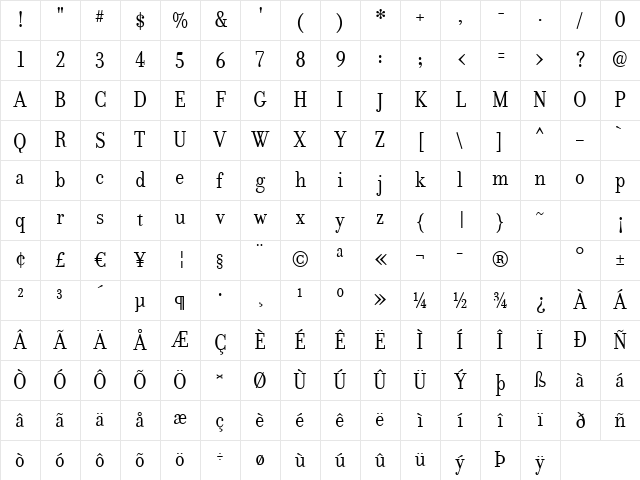
Complete Donatora Regular glyph index. Displaying only characters natively supported by Donatora Regular font.
Donatora is a composed and adaptable typeface that performs quietly and consistently across a wide range of design contexts.